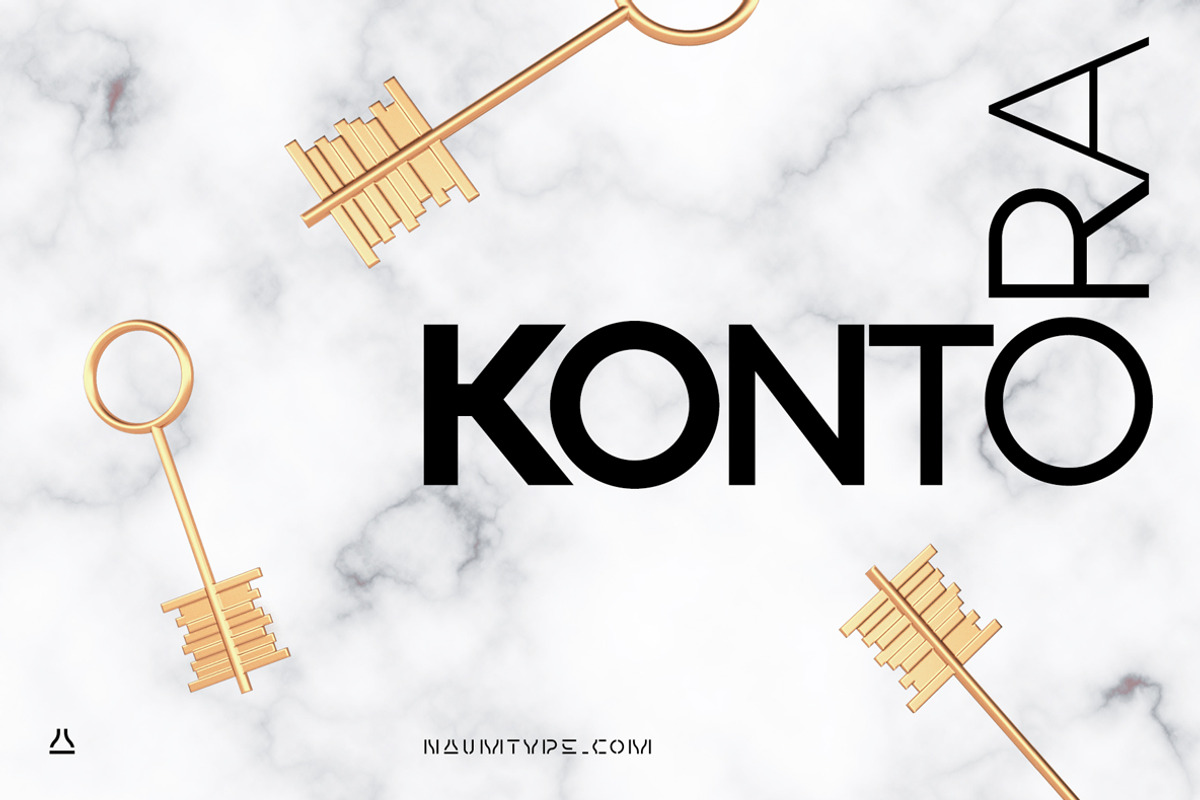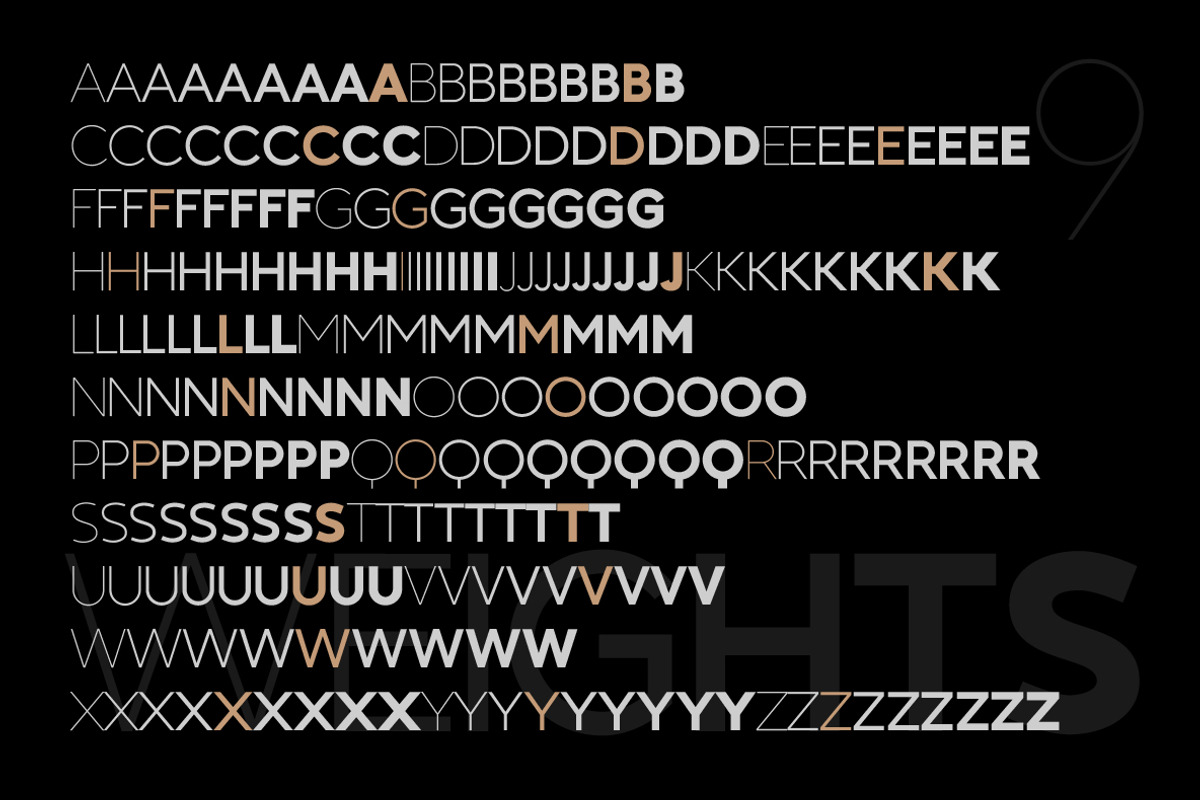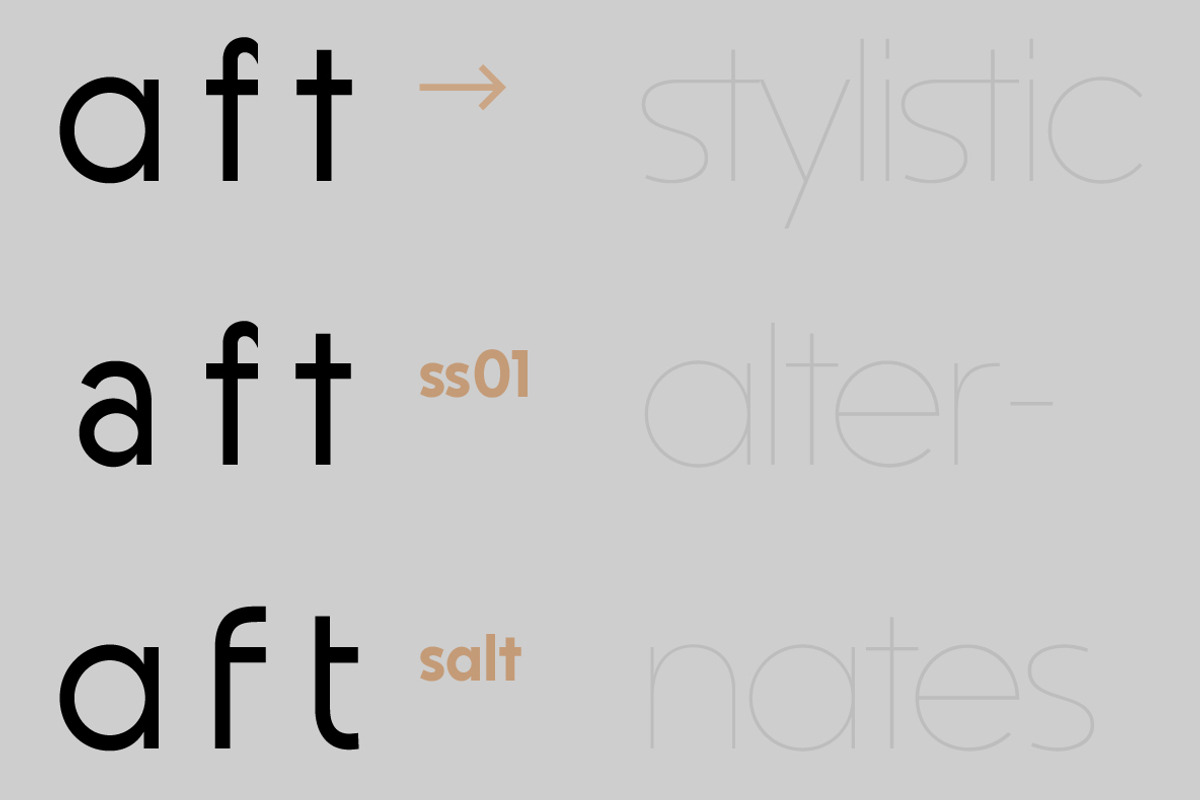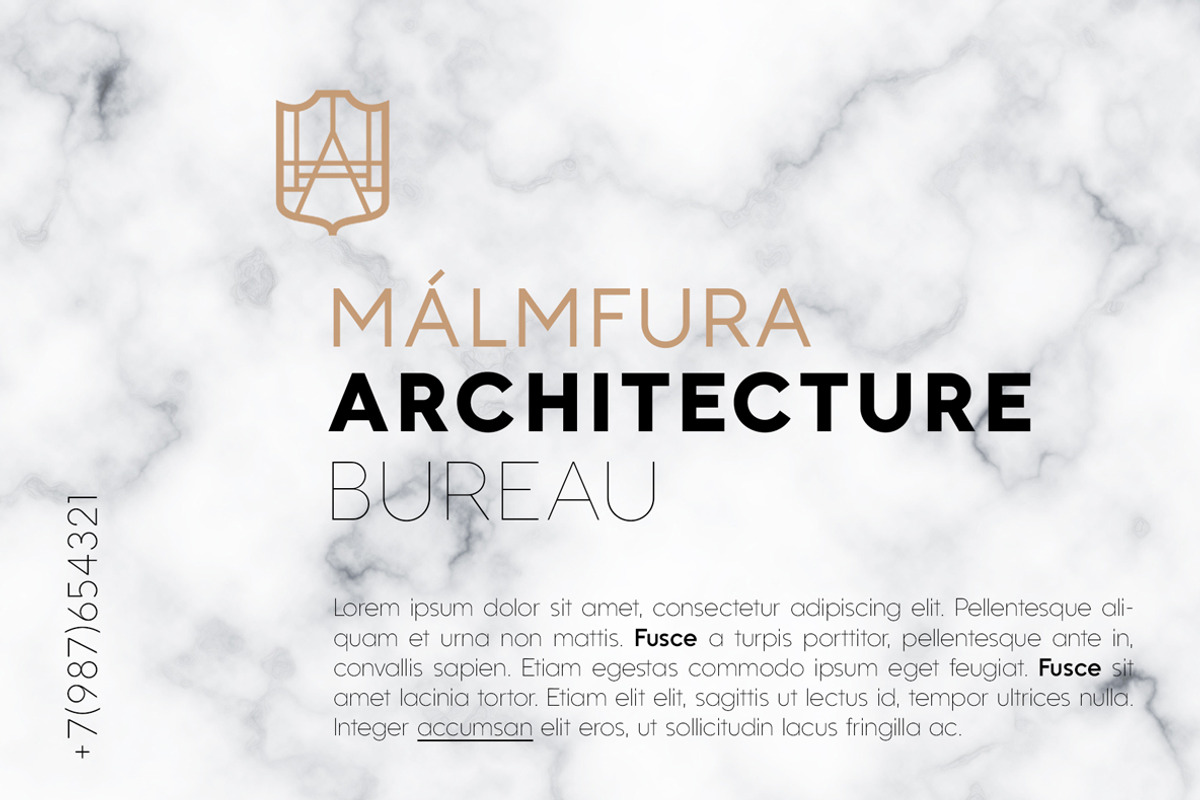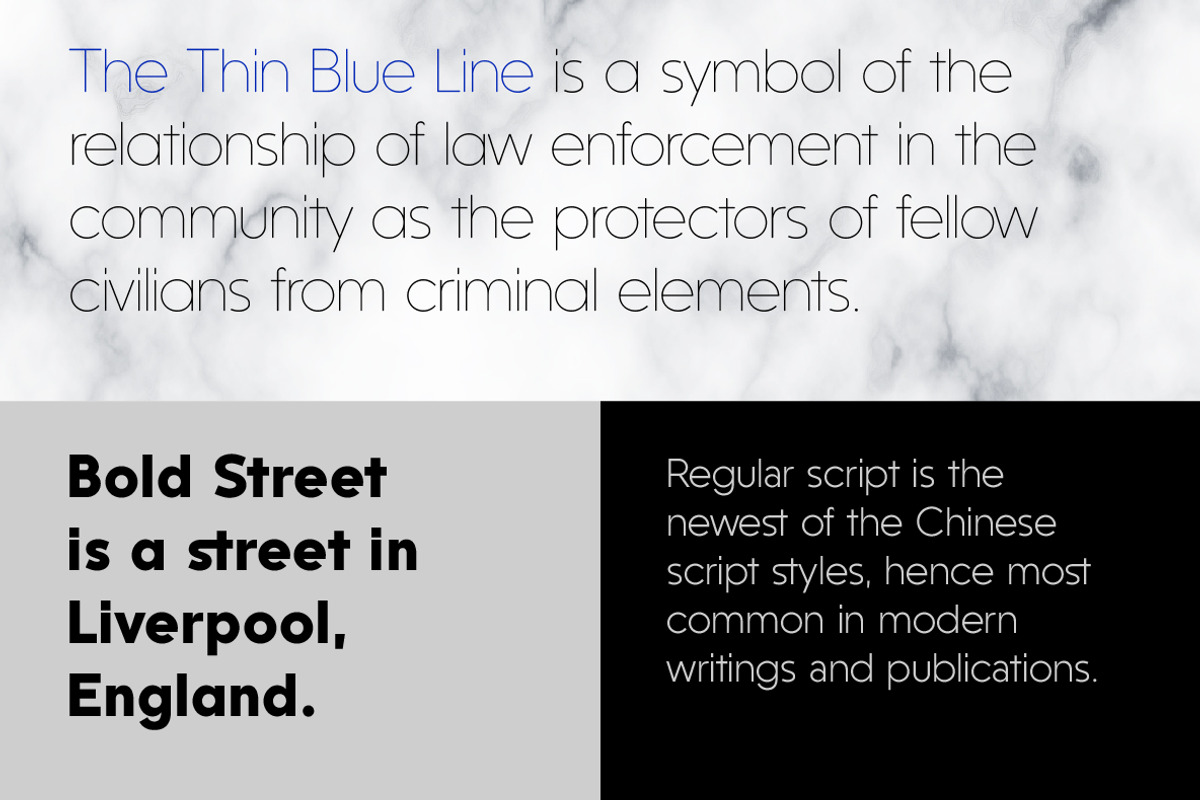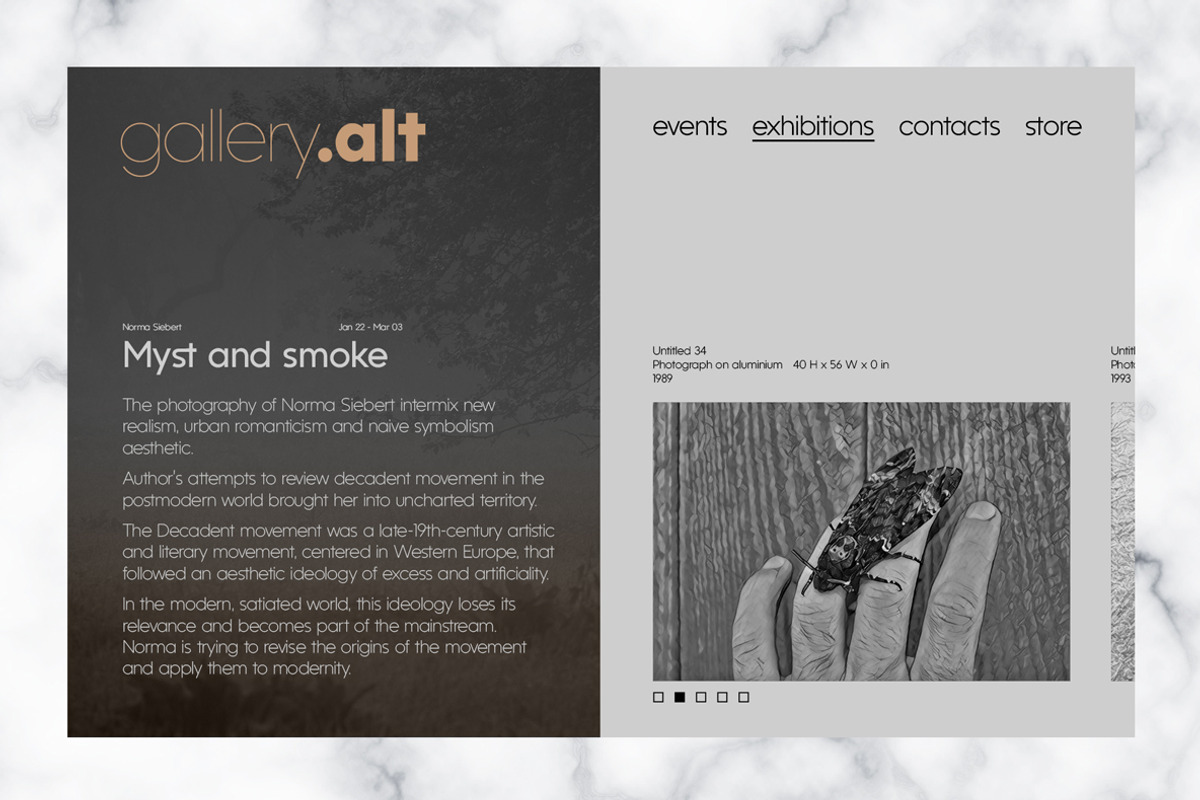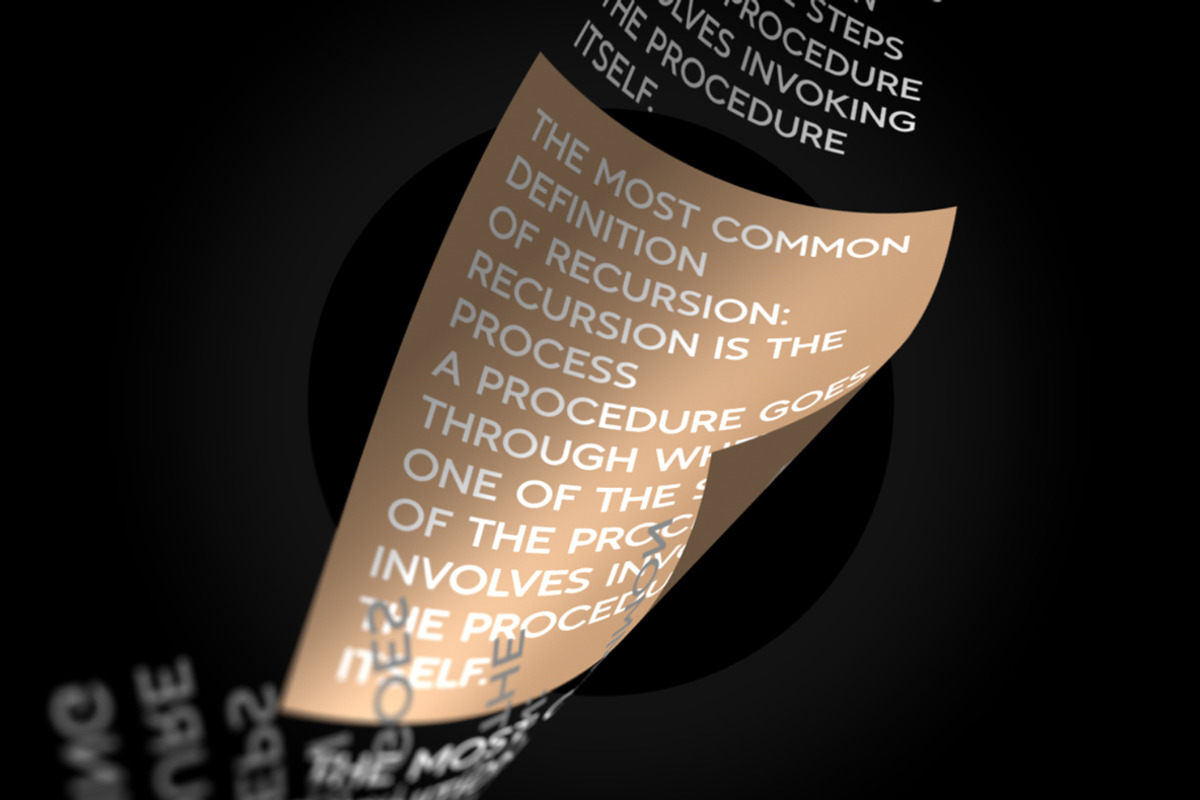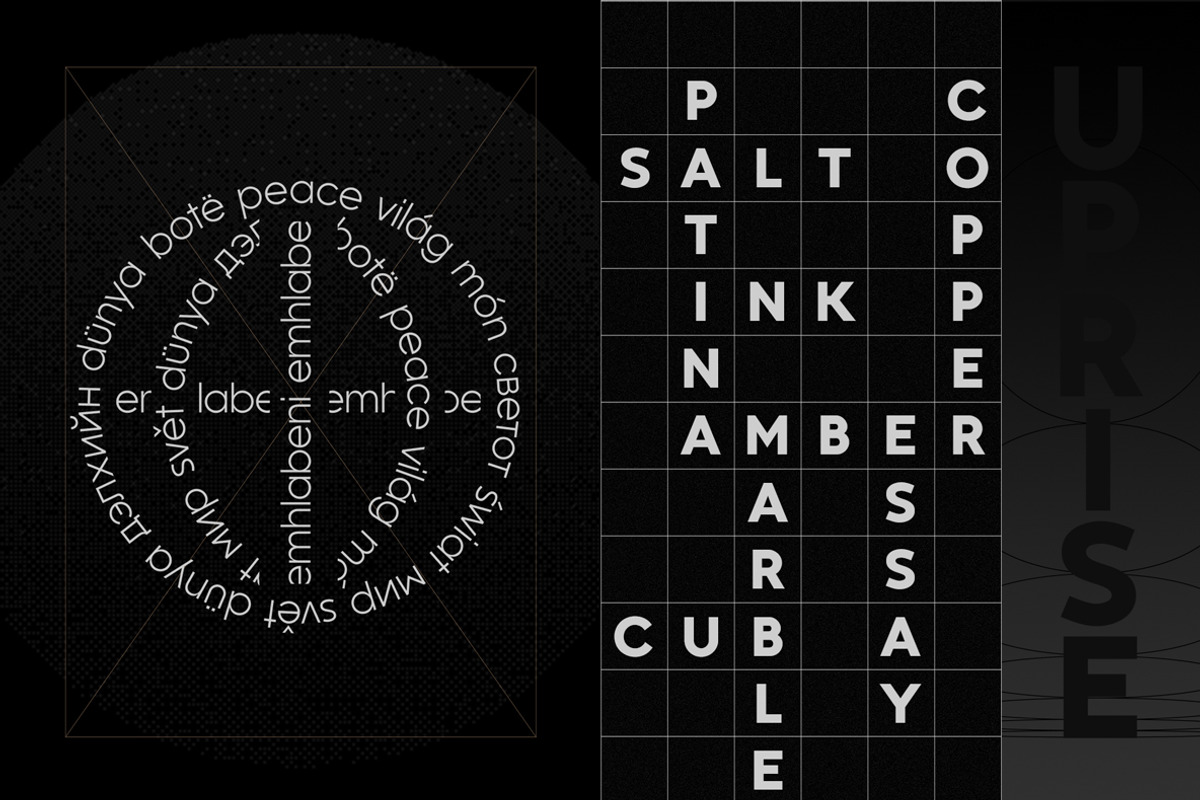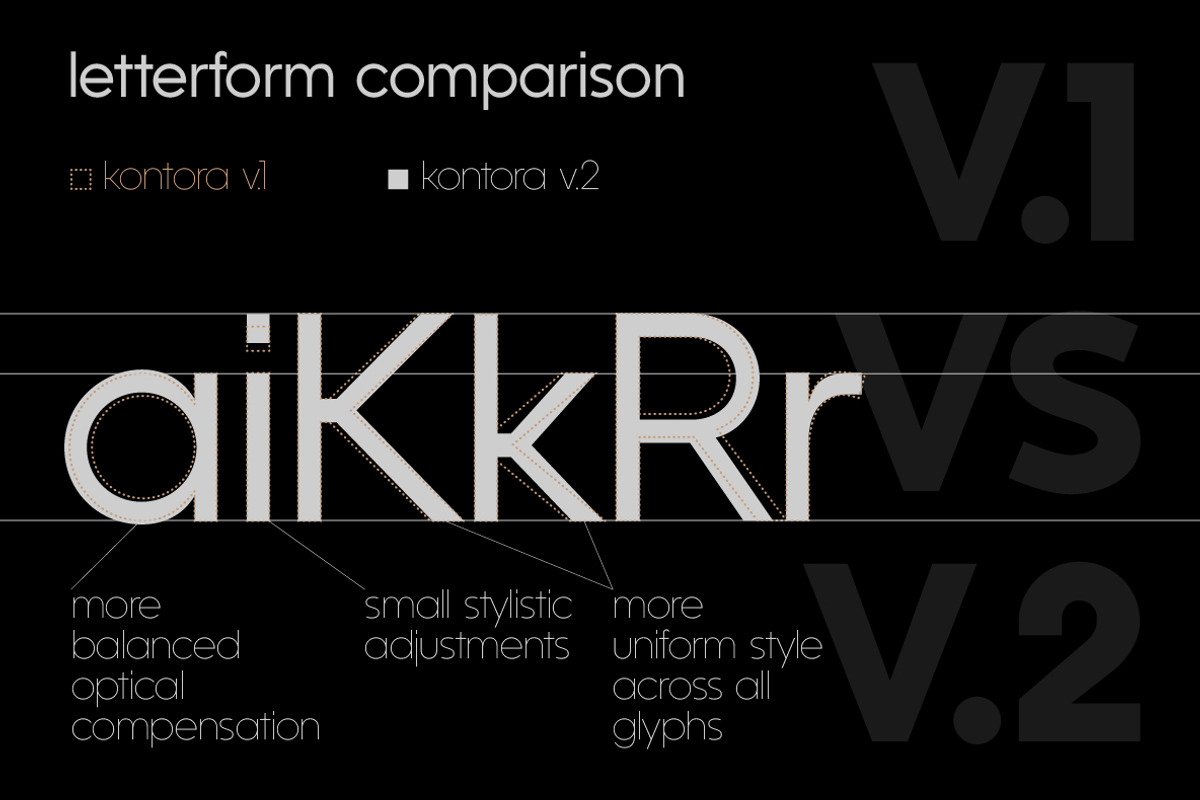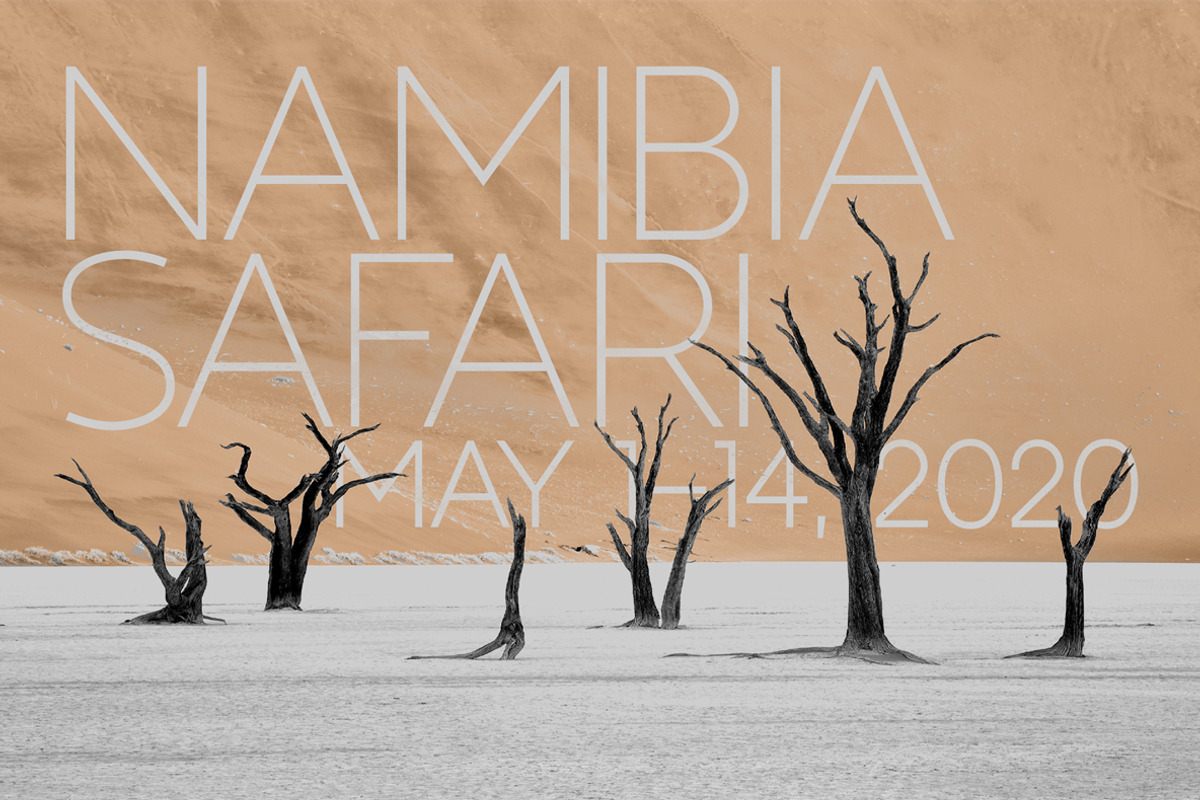
Kontora | 9 Fonts
Kontora is elegant, universal and laconic geometric sans.
Kontora has minimal amount of decor, mostly modern proportions and letterforms, but at the same time it has a touch of retro constructivist aesthetics.
Inspired by the early 20th-century geometric sans-serif fonts like Futura and Akzidenz Grotesk, Kontora taking a few steps to become more relevant to modern needs: shorter ascender and descender height, more open and sleek form of letters S and s, flat r shoulder, K and k letterforms with crossbar joint, square titles, flat apexes, more balanced width of capitals, a tendency to symmetry in letterforms (Q,t,u) and tighter spacing.
The second version of Kontora sans comes in 9 weights, and has 590 glyphs. It has basic ligatures and two sets of stylistic alternates. Since the first version, Kontora also went through the number of stylistic changes, which are presented on the sixth slide above.
- good Cyrillic